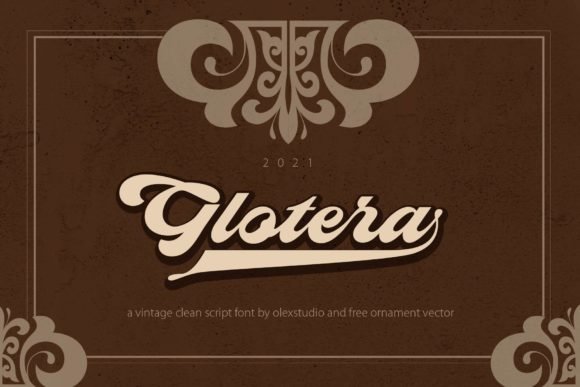
The Perfect Blend of Retro and Modern: Discovering the Glotera Font
Remember that moment when you stumbled upon an old, vintage poster that captured your heart? The way the bold, handwritten letters seemed to leap off the page, exuding confidence and charisma? That’s exactly what the Glotera Font can bring to your designs.
As a designer, you’re always on the lookout for that special something to give your projects a unique touch. That’s where Glotera comes in – a retro and bold handwritten font that’s perfect for adding a stylish twist to your headlines and logotype projects. With its PUA encoded glyphs and swashes, you can easily access a wide range of creative possibilities and give your designs a nostalgic character that’s sure to stand out.
- Character Set: The font includes a comprehensive set of characters, including Latin, Cyrillic, and Greek alphabets, as well as a range of punctuation and diacritical marks.
- Unique Characteristics: Glotera Font features a distinctive, modern design with a focus on readability and legibility, making it an ideal choice for body text and titles in various contexts.
Glotera Font Review
I recently had the chance to work with the Glotera Font, and I must say it’s a unique addition to any design project. Here are some of my thoughts.
- The Glotera Font has a beautiful, elegant feel to it. It’s perfect for creating a sophisticated and high-end look in any design.
- The font is highly versatile and can be used in a wide range of applications, from business cards to posters.
- The Glotera Font has a wide character set, making it easy to use in any language.
- The Glotera Font can be quite difficult to read in small sizes. This may limit its use in certain applications where readability is crucial.
- The font may not be suitable for use in body text, as it can be quite busy and overwhelming.
- The Glotera Font may not be compatible with all operating systems or devices, which can cause display issues.
Overall, the Glotera Font is a great addition to any design project that requires a touch of elegance and sophistication. While it may have some limitations, it’s a great choice for creating eye-catching headings and titles. I would definitely consider using it again in the future.
Tips for Getting the Most Out of Glotera Font
Use Glotera Font for titles, headings, and short paragraphs to create a visually appealing and elegant design.
Combine Glotera Font with other fonts to create a unique and creative design.
Glotera Font is ideal for:
- Business cards and brochures
- Magazine and newspaper headlines
Comparison to Glotera Font: Glotera Font has a more modern and sleek feel compared to Playfair Display, which has a more traditional and vintage look.